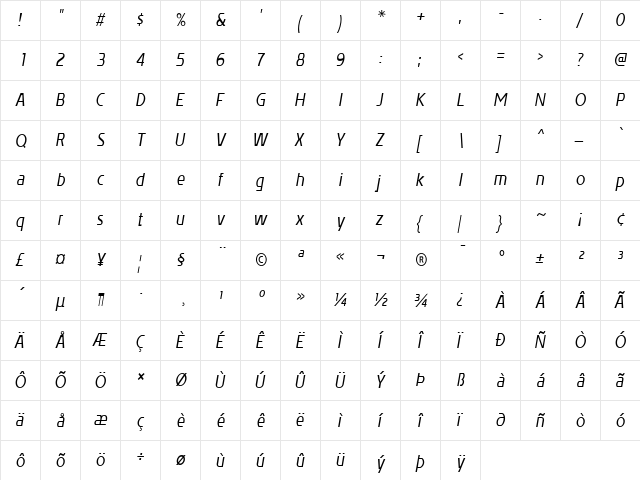
Affluent Italic
Design Context for Affluent Typeface
Affluent offers clean, dependable letterforms without strong stylistic allegiance, making it a practical choice for designers who need flexibility. Its italic angle brings a sense of urgency and motion to the letterforms.
Pro Tip: Try Affluent for annotation and caption copy alongside an upright companion — the contrast in angle creates a dynamic but ordered typographic system.